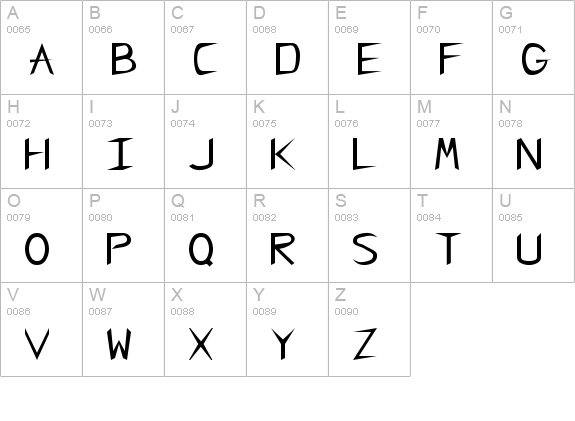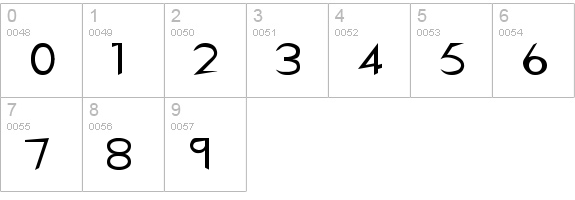
RSCharlieChan Font Details
Introducing RSCharlieChan font, a captivating and versatile typeface that adds a touch of sophistication to any design project. This elegant font features unique characters with a modern twist, making it perfect for branding, advertising, and more. With its sleek and stylish appearance, RSCharlieChan font is sure to make your text stand out and leave a lasting impression. The best part? RSCharlieChan font is completely free to download at FontsMarket.com! Simply visit the website and add this stunning font to your collection without spending a dime. Whether you're a designer looking to elevate your creations or a business owner in need of a fresh new font for your marketing materials, RSCharlieChan font has you covered. Download it today and start creating beautiful and professional designs with ease.